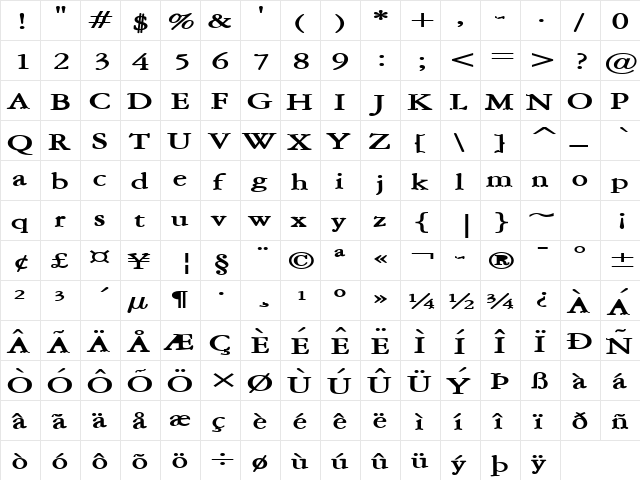
Amery Extended Bold
Design Context for Amery Extended Typeface
Amery Extended offers clean, dependable letterforms without strong stylistic allegiance, making it a practical choice for designers who need flexibility. The heavy weight commands attention and anchors typographic hierarchies.